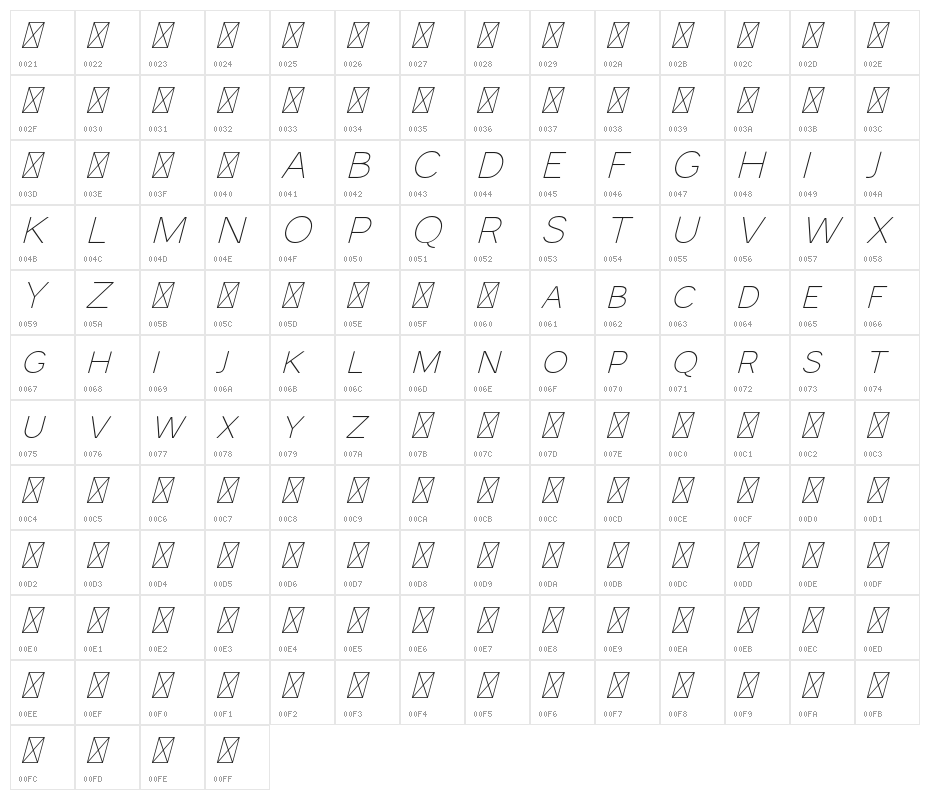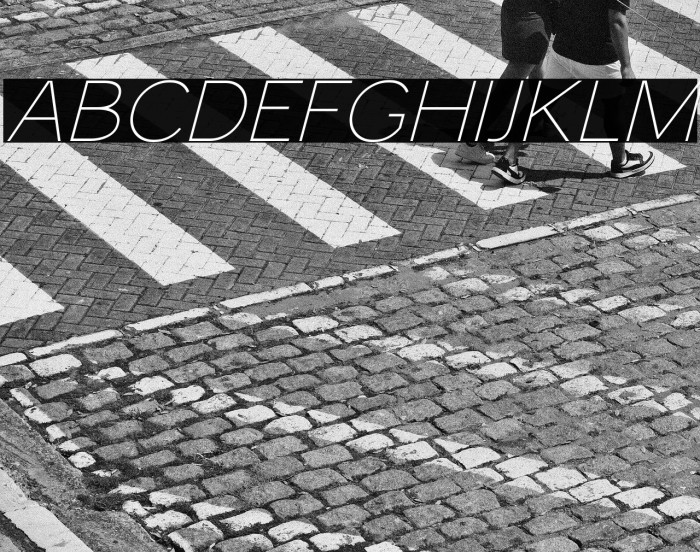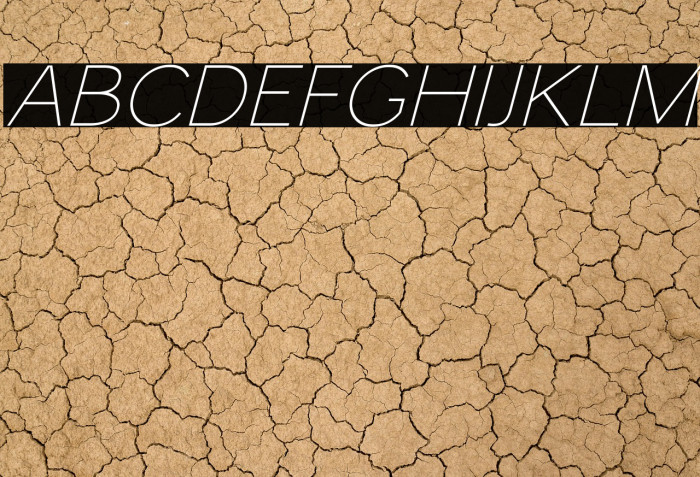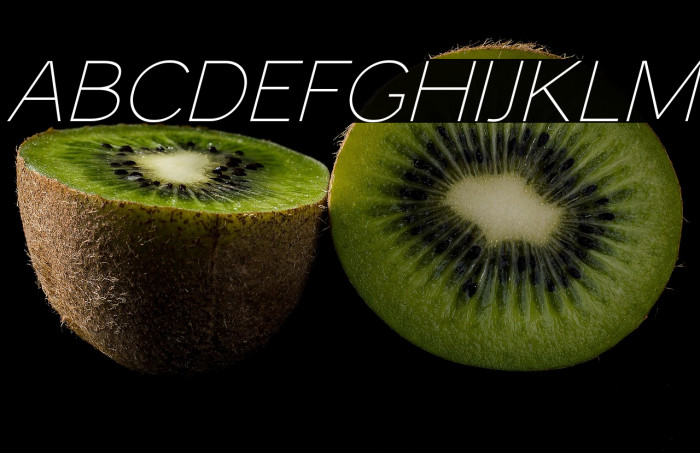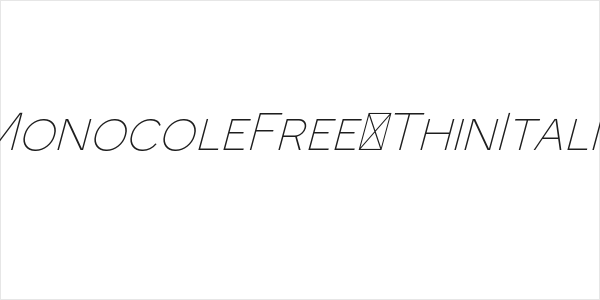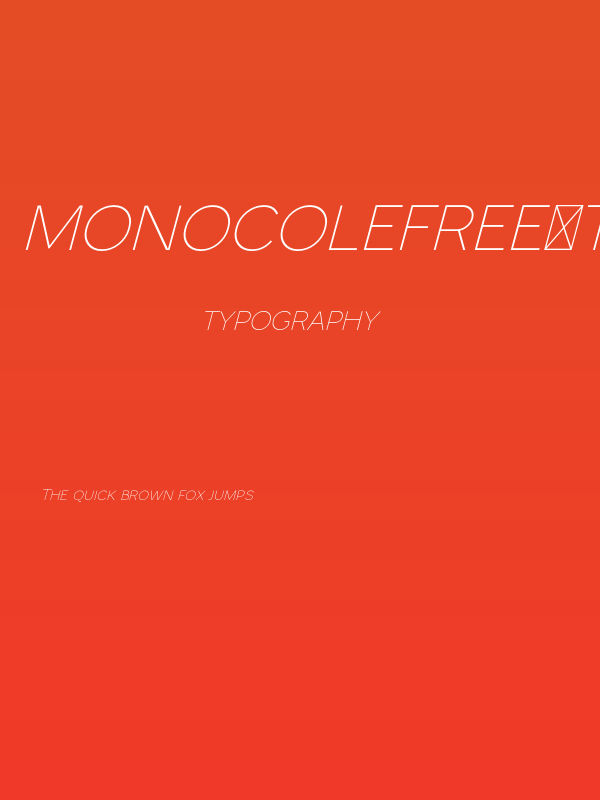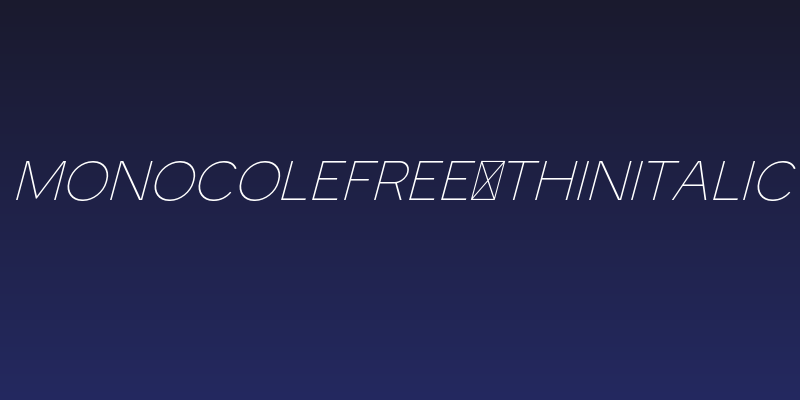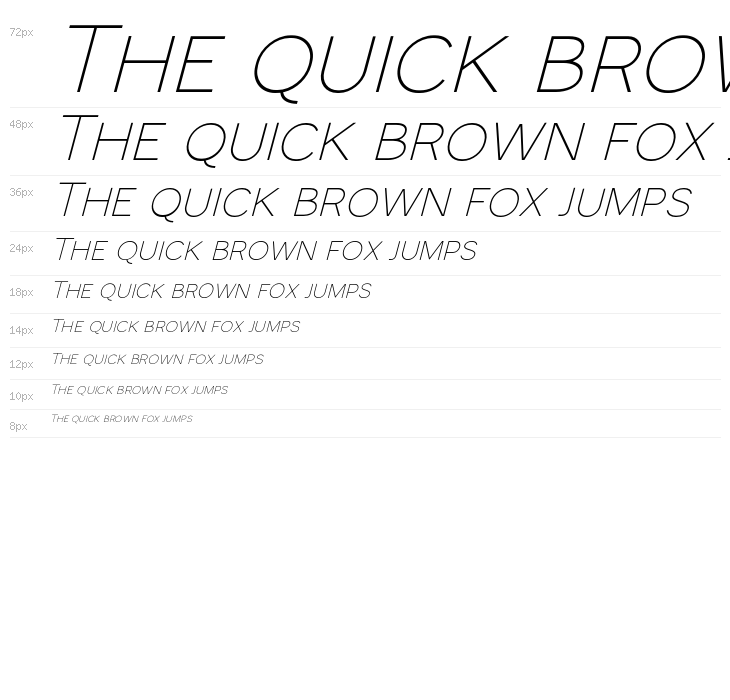
MonocoleFree-ThinItalic Font
MonocoleFree-ThinItalic Description
This font features a sleek and modern design with a thin, italicized style. The characters are elongated and slightly slanted, giving a sense of motion and elegance. The strokes are consistent in thickness, contributing to a clean and sophisticated appearance. The uppercase and lowercase letters maintain a uniform height, enhancing readability while preserving a stylish flair. The overall look is minimalist, making it suitable for contemporary design projects. The font's thin lines and italic angle create a dynamic yet refined aesthetic.